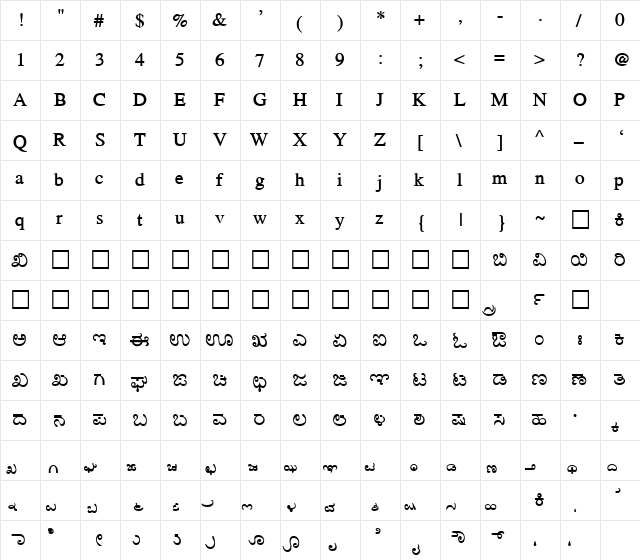
AkrutiOfficePadminiMedium Medium
Design Context for AkrutiOfficePadminiMedium Typeface
AkrutiOfficePadminiMedium is a composed and adaptable typeface that performs quietly and consistently across a wide range of design contexts.